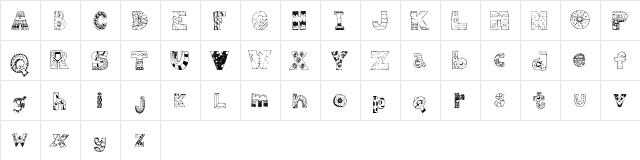
Pops Regular
Design Context for Pops Typeface
Pops is a composed and adaptable typeface that performs quietly and consistently across a wide range of design contexts.